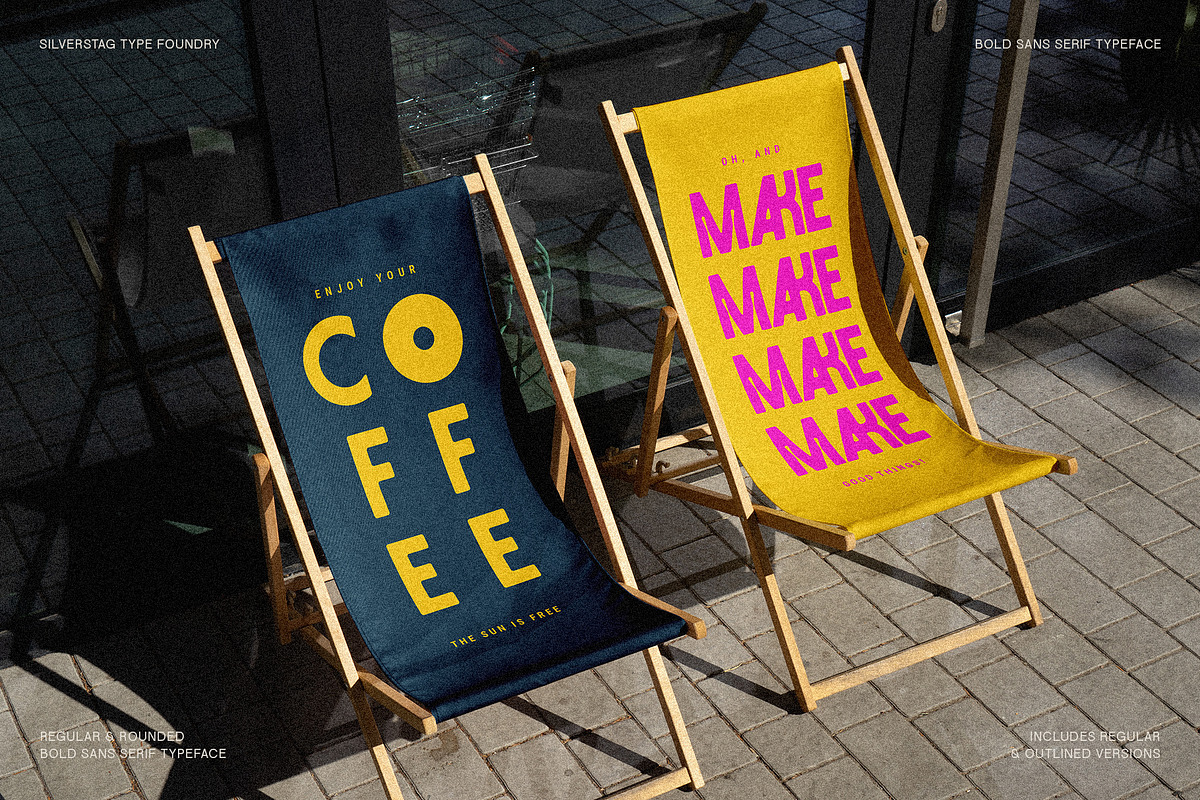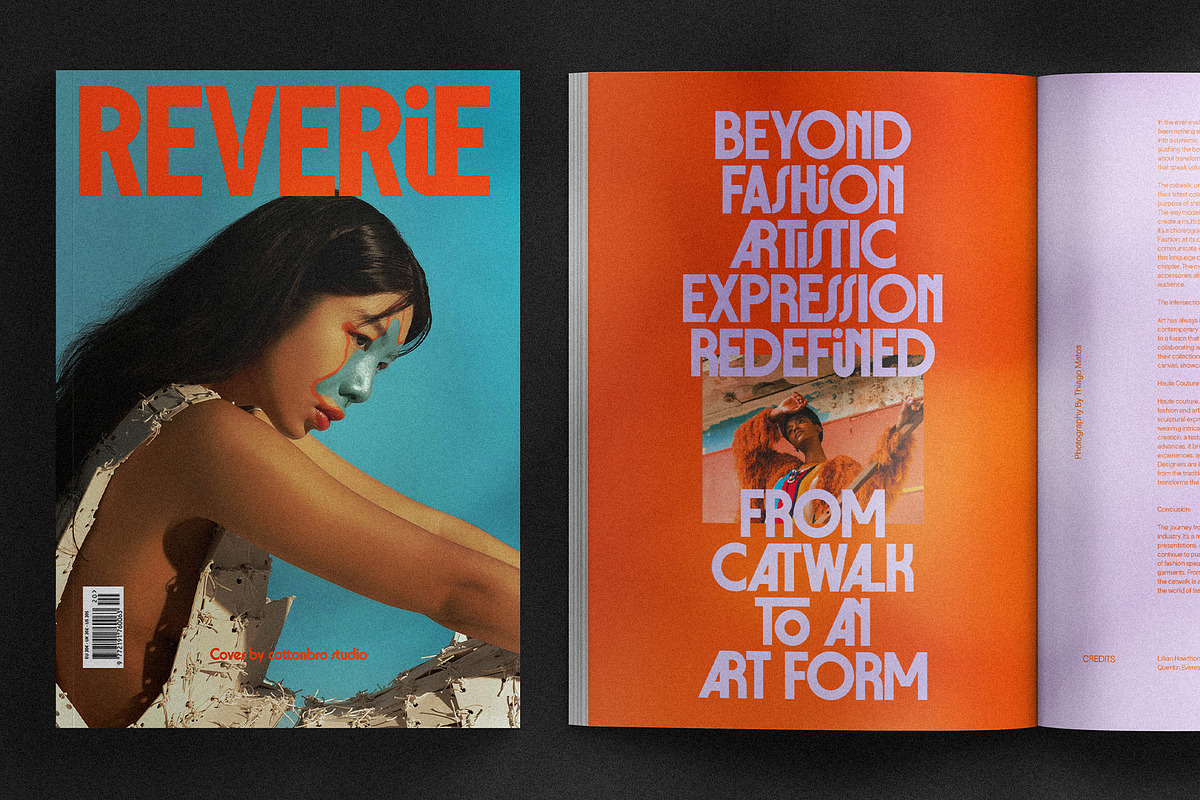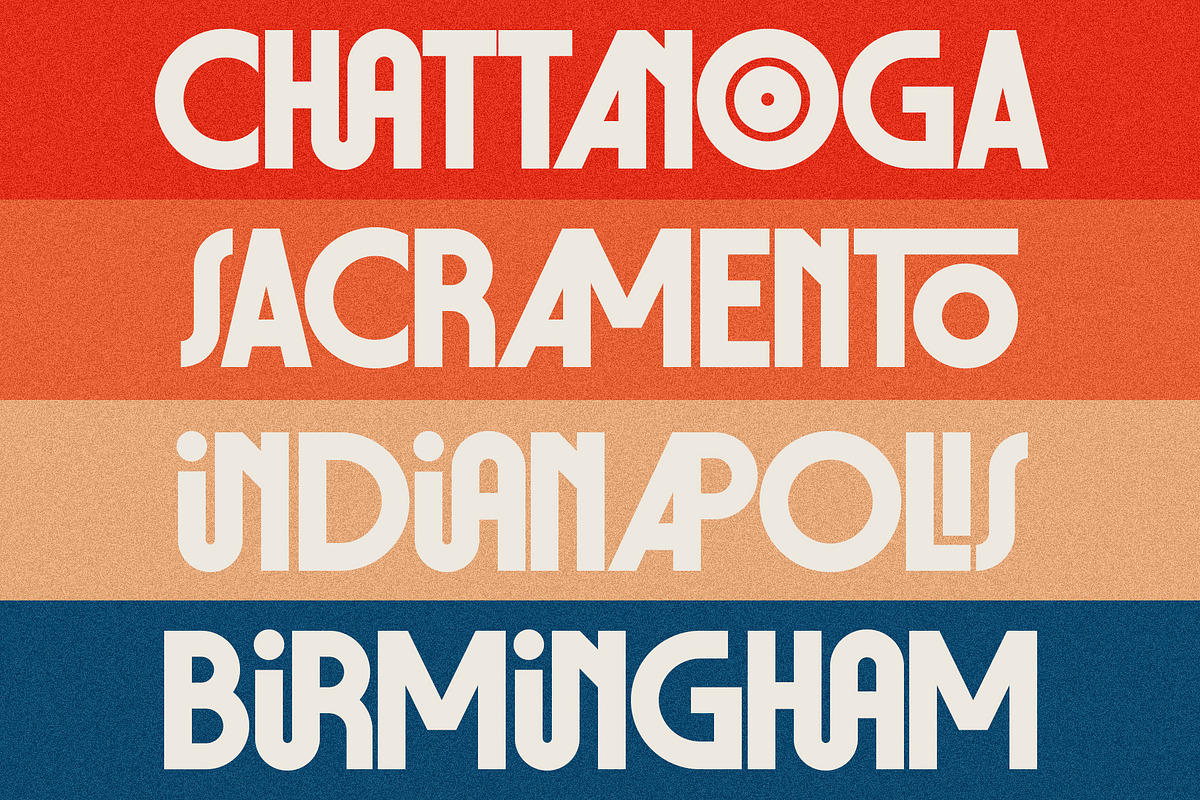
Collidge, my super bold sans serif, isn’t messing around. Think chunky strokes, sharp angles, and a commanding presence that demands to be seen. It’s got that modern, urban edge that works perfectly for cutting-edge branding, attention-grabbing headlines, and impactful social media graphics.
No project’s too ambitious; Collidge crushes language barriers with multilingual support for over 90 languages. Whether you’re working with international brands or reaching a diverse audience, this typeface has you covered.
Picture Collidge emblazoned on:
- Powerful sports posters and promos
- Trendy streetwear labels
- Edgy magazine layouts
- Unforgettable website banners
- Dynamic logo designs